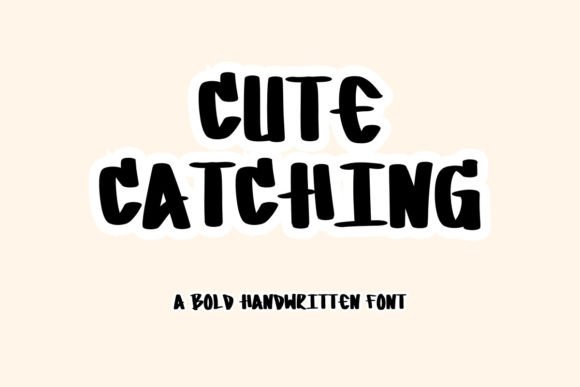
CuteCatching Font: Adding Whimsy and Charm to Your Designs
In the world of typography, fonts play a crucial role in conveying the tone and personality of a design. Among the numerous fonts available, CuteCatching stands out for its playful and whimsical style, making it perfect for a wide range of projects. Whether you’re a designer, artist, or DIY enthusiast, CuteCatching is an excellent choice for adding charm and character to your creations.
What is CuteCatching Font?
CuteCatching is a unique and delightful font designed to bring a touch of playfulness and whimsy to your designs. Its friendly appearance and curly lines make it an ideal choice for projects that require a lighthearted and charming tone. The font’s versatility allows it to be used in various contexts, from digital designs to print materials.
Perfect for a Range of Projects
CuteCatching’s adaptability makes it suitable for a wide range of projects, including:
- Greeting Cards: Create charming and personalized greeting cards for special occasions like birthdays, holidays, or weddings.
- Posters and Flyers: Design eye-catching posters and flyers for events, promotions, or announcements that require a playful touch.
- Social Media Graphics: Use CuteCatching to create engaging social media graphics, such as Facebook posts, Instagram stories, or Twitter headers.
- Children’s Book Titles: Add a touch of whimsy to children’s book titles, making them more appealing to young readers.
- Invitations: Design inviting invitations for parties, baby showers, or other celebrations that require a friendly and approachable tone.
- Stickers and Labels: Create fun and colorful stickers and labels for various purposes, such as gift tags or product labels.
- Merchandise Designs: Use CuteCatching to design quirky merchandise, such as t-shirts, mugs, or tote bags.
- Art Prints: Create appealing art prints with playful quotes or phrases that add a touch of personality to any room.
- DIY Crafts: Incorporate CuteCatching into your DIY crafts, such as handmade cards, scrapbooking, or other paper crafts.
Why Choose CuteCatching Font?
CuteCatching offers several benefits that make it an excellent choice for designers and DIY enthusiasts:
- Unique and Playful Style: CuteCatching’s distinctive and whimsical style sets it apart from other fonts, making it perfect for projects that require a touch of personality.
- Versatility: The font’s adaptability allows it to be used in various contexts, from digital designs to print materials.
- Easy to Read: Despite its playful style, CuteCatching remains easy to read, making it suitable for both headlines and body text.
- Customizable: CuteCatching can be customized to fit your design needs, allowing you to adjust the font size, color, and style to match your project’s tone.
Tips for Using CuteCatching Font
To get the most out of CuteCatching, consider the following tips:
- Pair with Other Fonts: Combine CuteCatching with other fonts to create a unique and visually appealing design.
- Experiment with Colors: Try different colors and gradients to add depth and personality to your design.
- Use it Sparingly: Use CuteCatching sparingly to create emphasis and draw attention to specific elements in your design.
- Consider the Context: Ensure that CuteCatching aligns with the tone and personality of your project, adjusting the font style and size as needed.
CuteCatching is a delightful font that can add a touch of whimsy and charm to your designs. Its versatility, playful style, and ease of use make it an excellent choice for a wide range of projects, from digital designs to print materials. By incorporating CuteCatching into your design endeavors, you’ll be able to create charming and engaging designs that capture the attention of your audience.